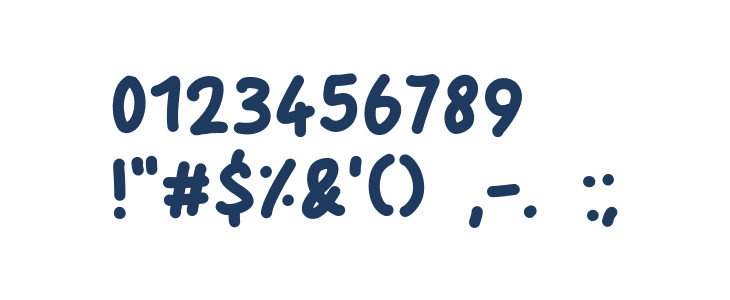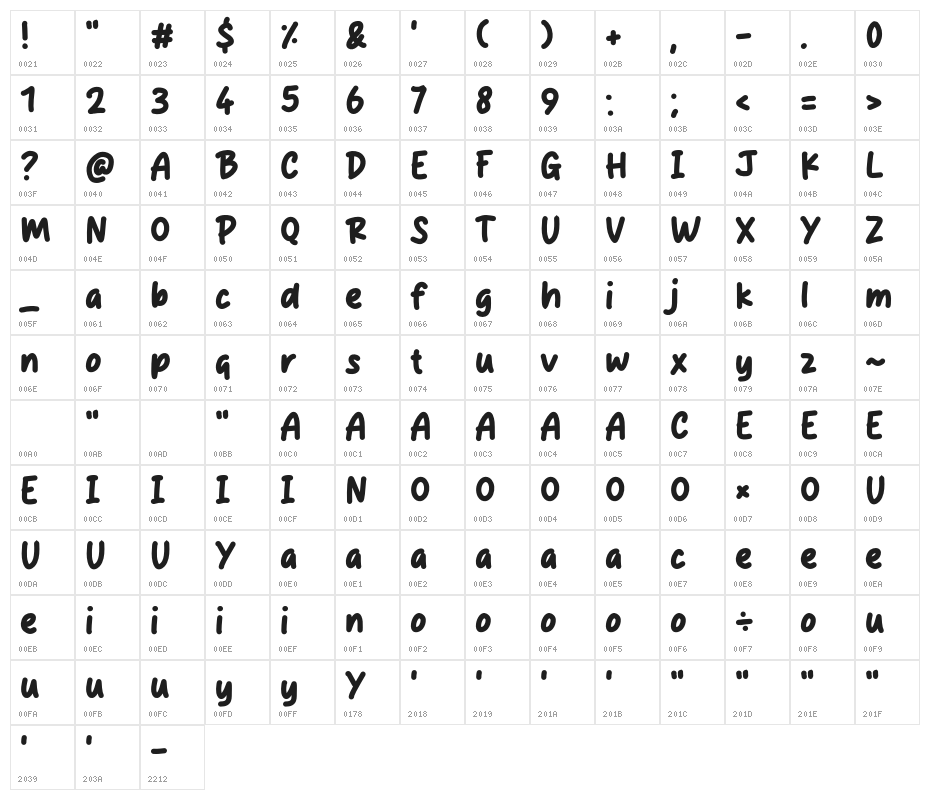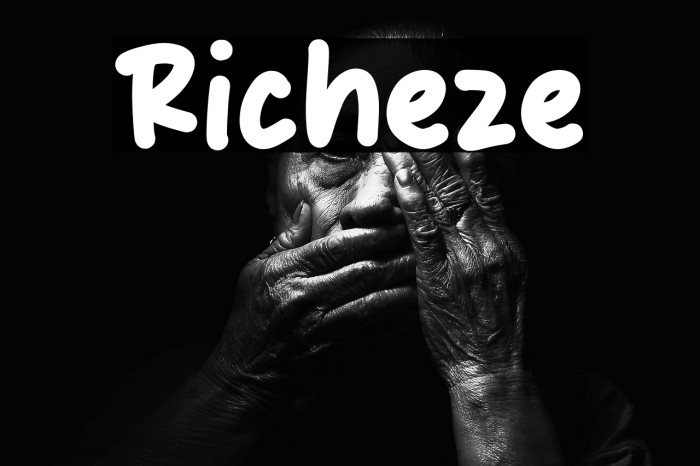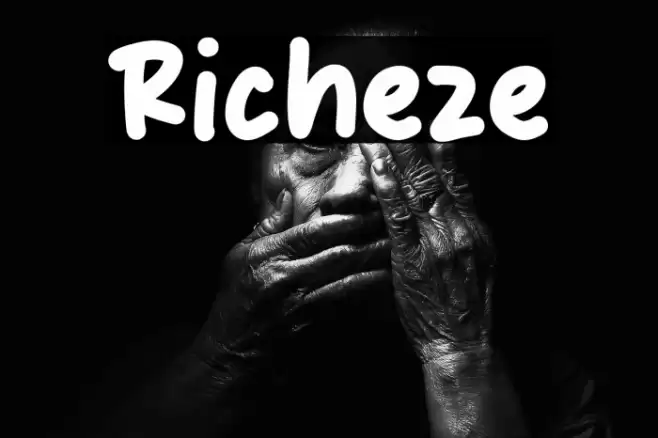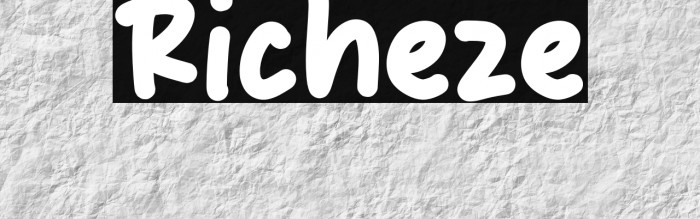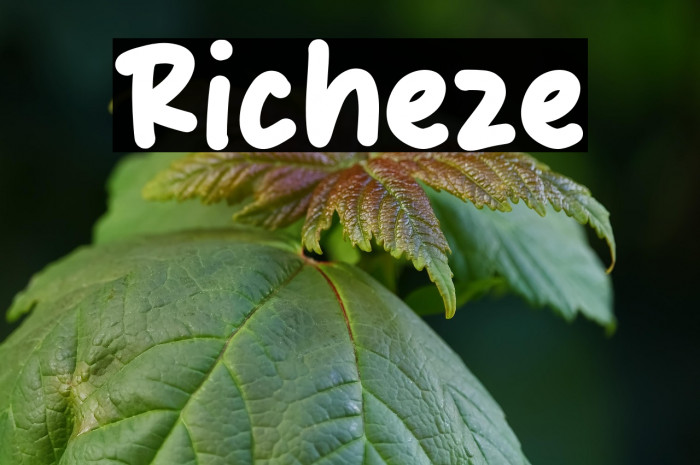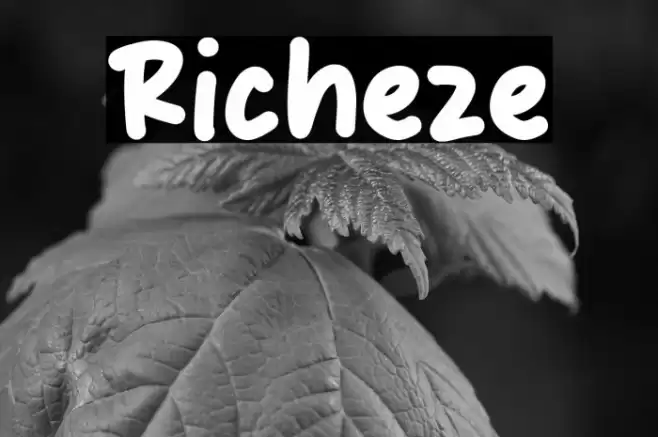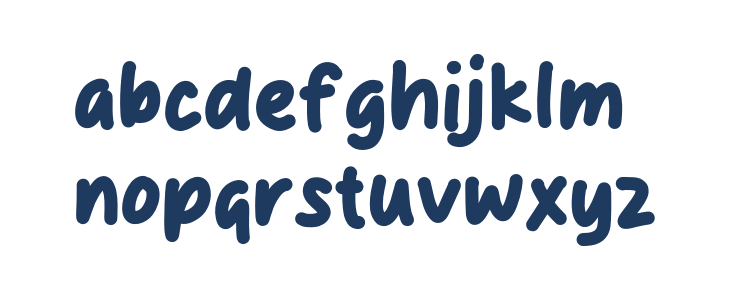
Richeze Font
Richeze Description
This font exhibits a playful and casual handwritten style, characterized by its rounded and bold letterforms. The strokes are consistent in width, giving it a uniform appearance that enhances readability. The letters are slightly slanted, adding a dynamic feel to the text. The font maintains a friendly and approachable aesthetic, making it suitable for informal and creative projects. The character spacing is normal, ensuring clarity and legibility across various sizes. Its unique style is complemented by a medium contrast in stroke thickness, providing a balanced visual appeal.
| Overall Style | Casual, Playful |
| Proposed Projects | Ideal for children's books, greeting cards, casual branding, and social media graphics. |